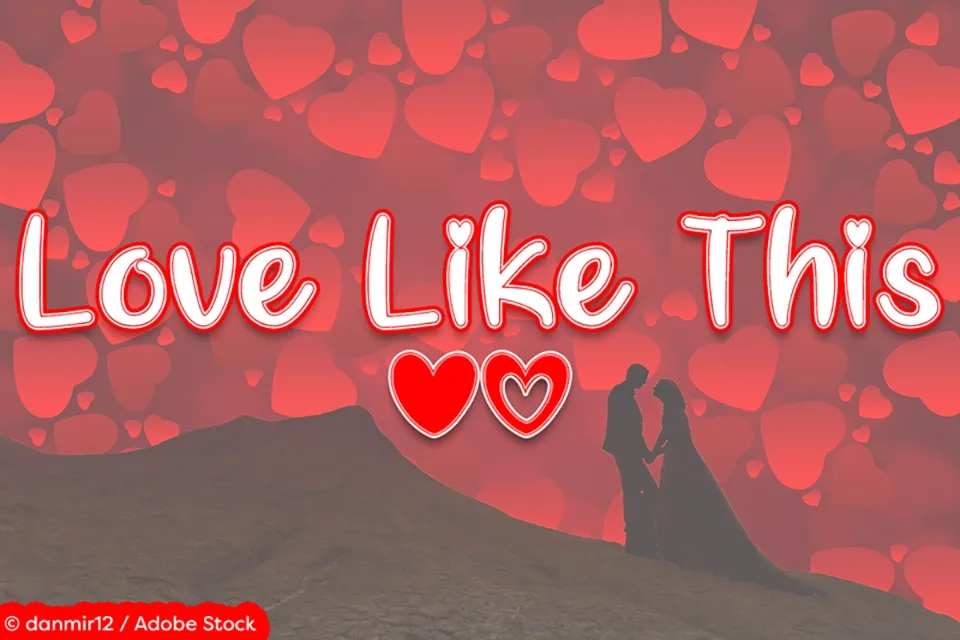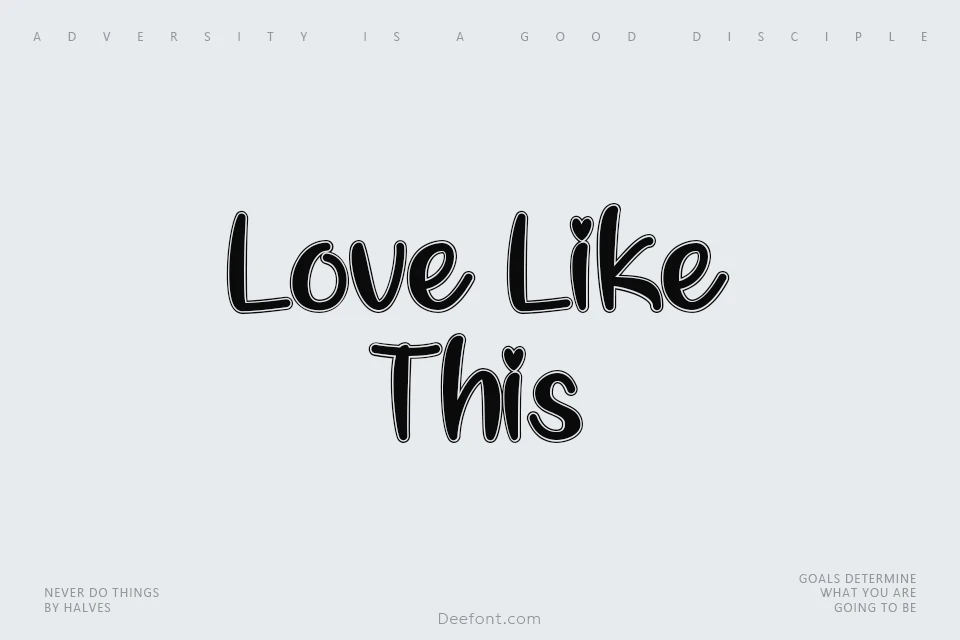
Love Like This Font
Love Like This Font is a charming and romantic font created by Misti’s Fonts in 2017. This decorative typeface features a playful, handwritten style with a slight slant that adds dynamic flair. The font incorporates special heart symbols, accessible by typing asterisk (*) for a solid heart or bar (|) for an open heart. Perfect for Valentine’s Day designs, wedding invitations, greeting cards, and other romantic projects, Love Like This combines elegance with whimsy. The font includes 234 glyphs and supports multiple languages, making it versatile for various creative applications. It’s free for personal use, while commercial use requires proper licensing.